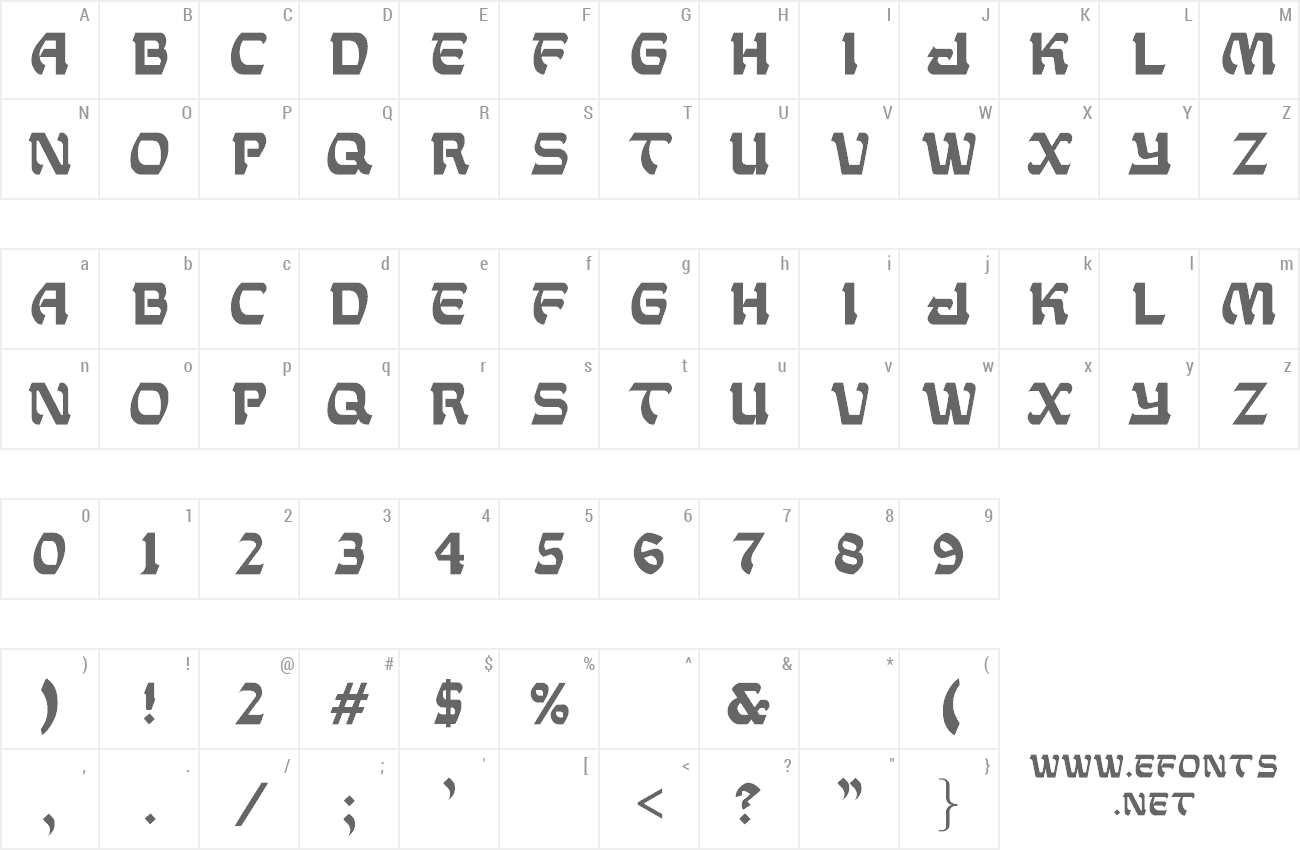
| Font name: | Dagupan Downtown |
| Author: | Ren Paga |
| Note by Ren Paga | |
| A prevalent design of stickers, prints and signages now created for graphic design applications and documentations. |